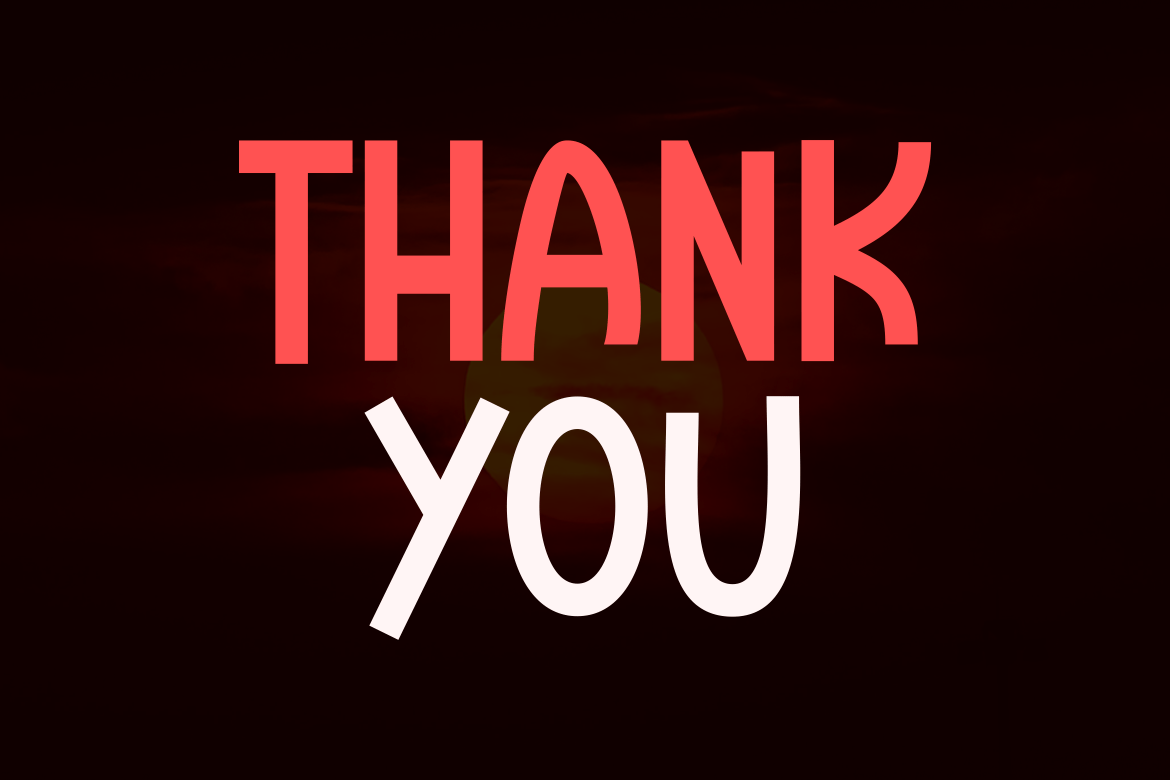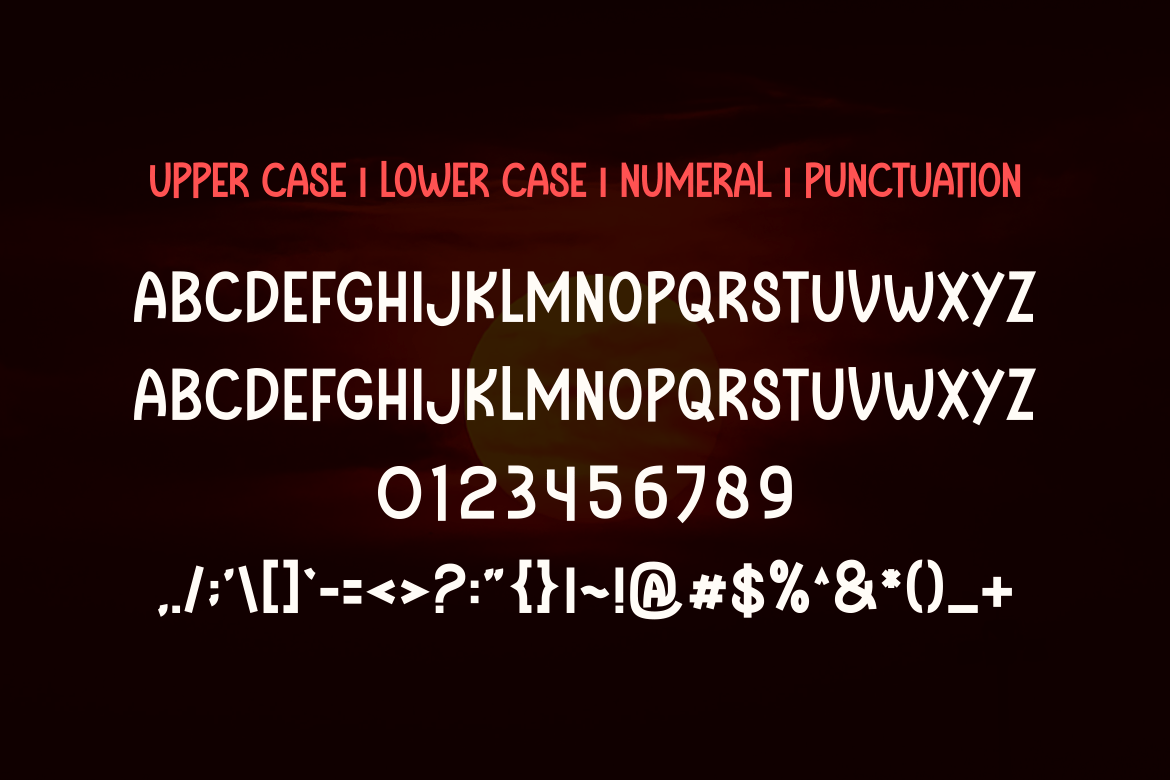
Raven Treat – Halloween Font
Presenting Raven Treat – Font is suitable for badge, labels, logo, branding, magazine, poster and etc. Our fonts have Uppercase & Lowercase, Numeral & Punctuation, Multilingual support and Opentype Features. For Amazing designs you can mix with other fonts as a complement.